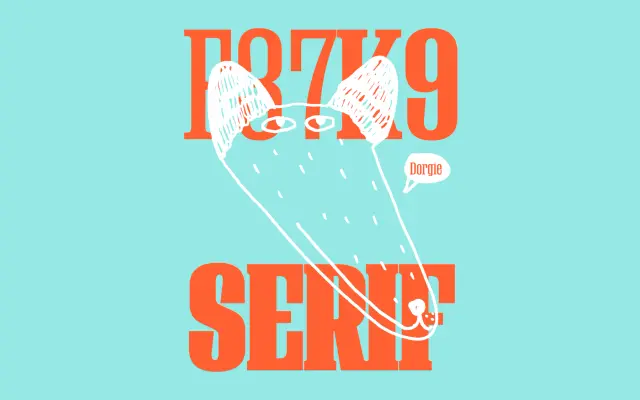
F37 K9 Serif
The serif cut in the K9 family, marrying classic serif terminals to the K9 skeleton.
A display serif by Rick Banks, drawn as the serif sibling within the F37 K9 family. Eight styles run from Light to Bold with matching italics, sharing skeletons with K9, K9 Round, K9 Soft, K9 Slab and K9 Wedge. Classic serif terminals sit on top of the family's stencil-influenced cuts, useful for editorial covers, music identity, posters and any system that wants a serif counterweight inside the K9 set.
F37 present K9 Serif as the serif cut in the K9 family, applying classic serif terminals to the K9 skeleton while keeping the family's stencil-influenced cuts.